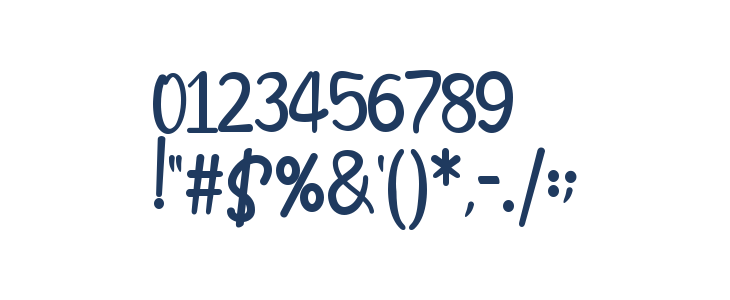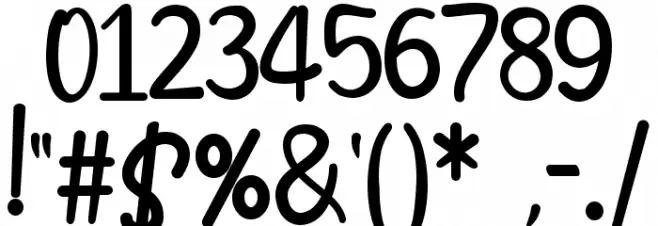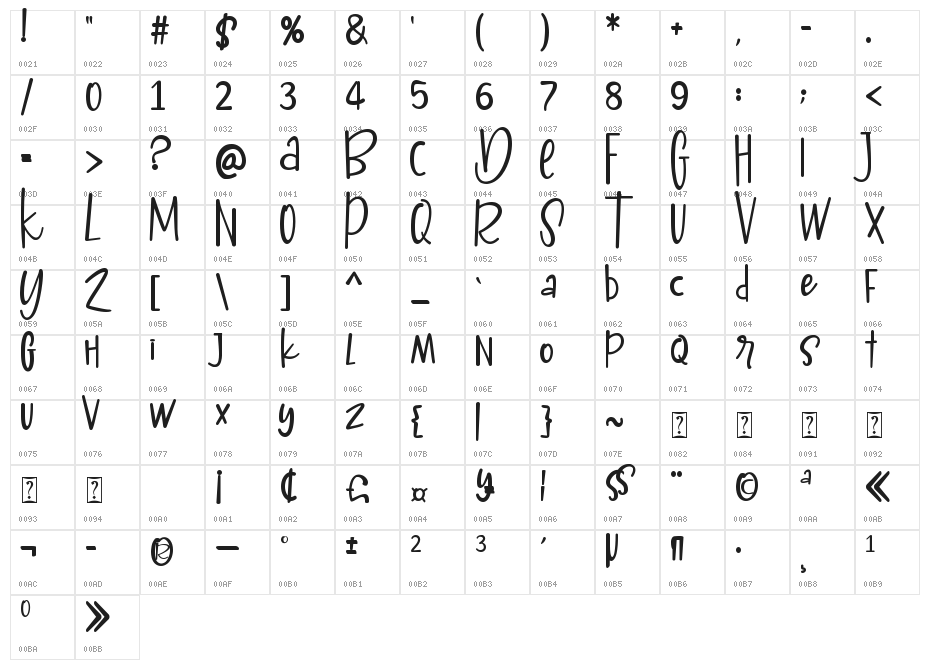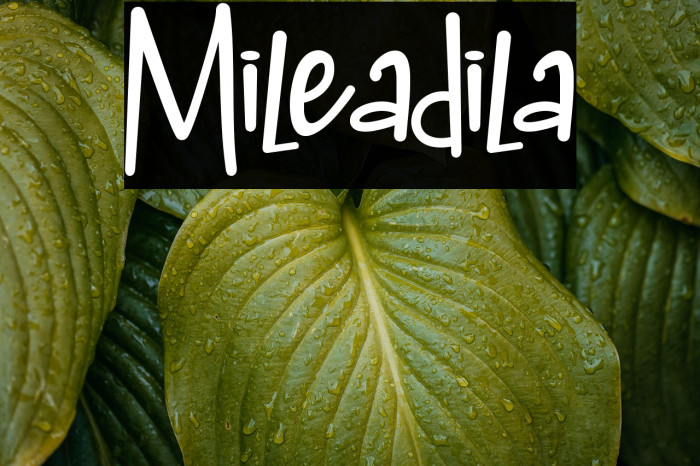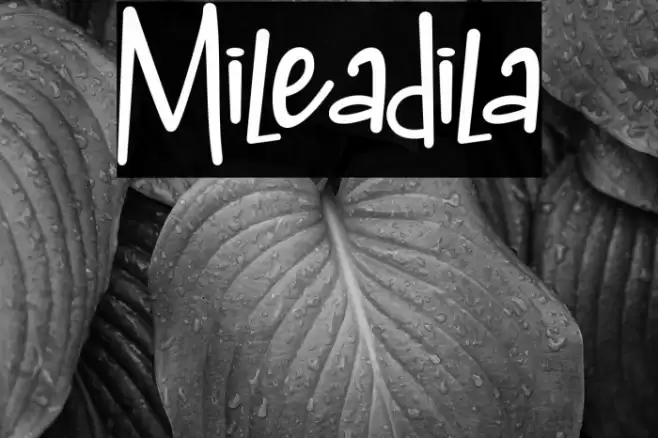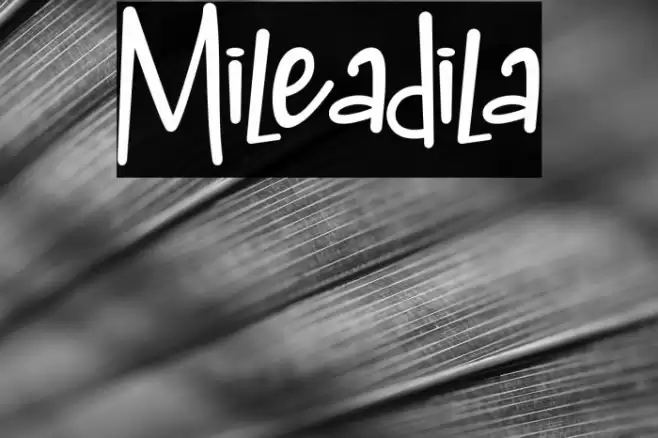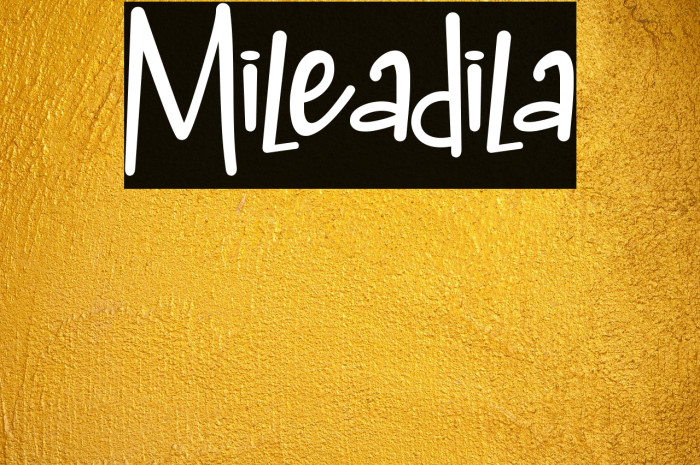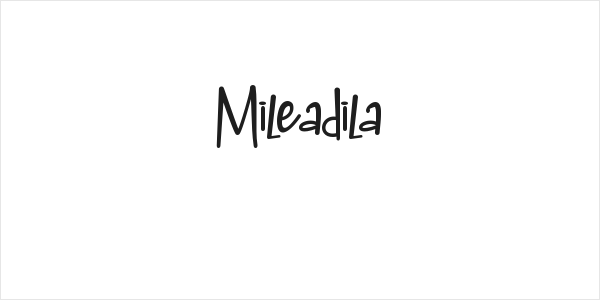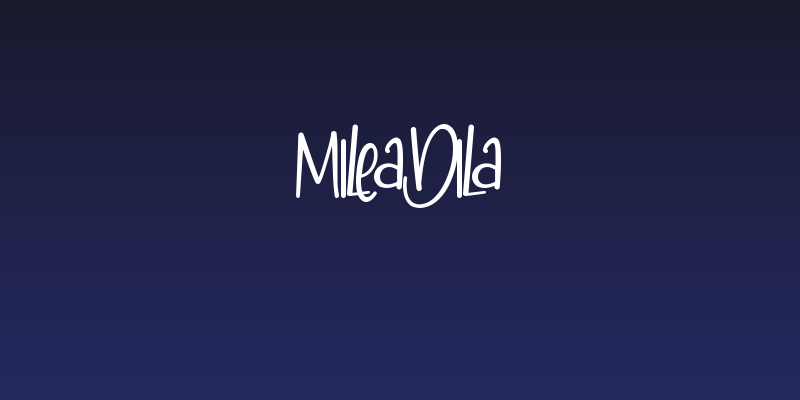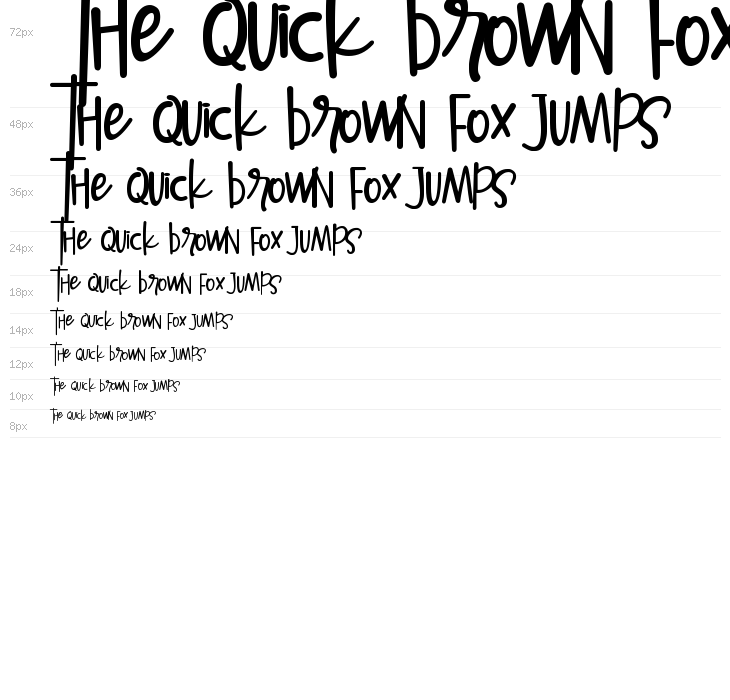
Mileadila Font
Mileadila Description
This font features a playful and energetic handwritten style with a casual, informal appearance. The letters are tall and narrow, with a slight slant that adds to the dynamic feel. The strokes are bold and consistent, giving the font a strong presence. The characters are closely spaced, which enhances the lively and spontaneous look. The font includes a full set of uppercase and lowercase letters, numbers, and a variety of special characters, making it versatile for different uses. Its unique style is perfect for projects that require a personal touch or a creative flair.
Proposed ProjectsIdeal for greeting cards, posters, social media graphics, and any project needing a personal, creative touch.